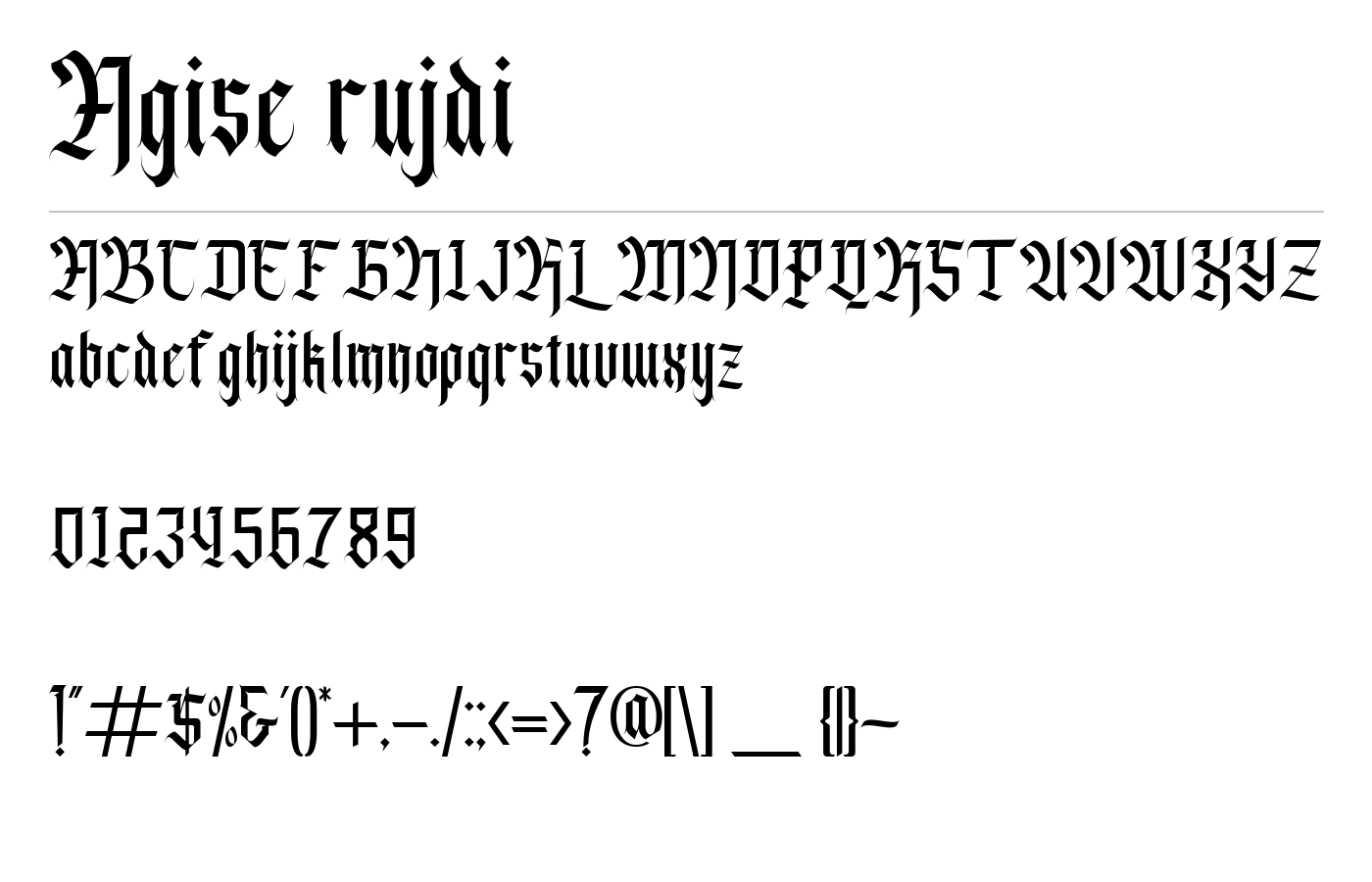
Agise Rujdi is a bold blackletter serif font characterized by its sharp, angular strokes and high contrast between thick and thin lines, giving it a striking, vintage Gothic appearance. Its condensed letterforms feature distinctive, ornate shapes that evoke a historic and dramatic feel, making it ideal for use in logos, headlines, and designs seeking a strong, traditional yet edgy aesthetic. This font works best in decorative or branding contexts where a sense of bold heritage or medieval style is desired.
Agise rujdi Font
About Agise rujdi Font